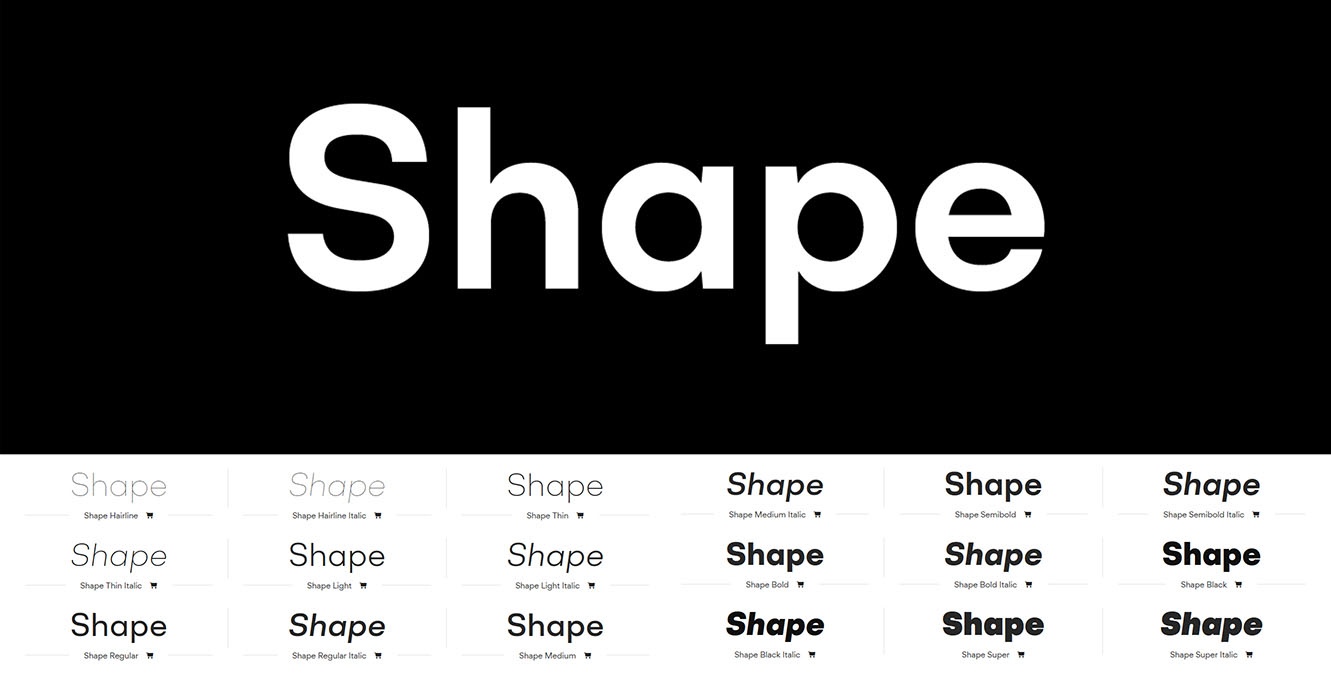
Shape Font
Shape Font is perfect for geometric design studios, minimalist architecture firms, modern art galleries, contemporary furniture brands, clean tech startups, and sophisticated corporate identity systems. Its structural character makes it ideal for engineering companies, graphic design agencies, industrial product packaging, mathematical publications, construction firms, and any project requiring precise geometry with mathematical elegance and systematic visual harmony.
This font is exciting because it celebrates the fundamental power of pure geometric forms while delivering exceptional functionality across all design applications. The precisely engineered letterforms demonstrate mathematical beauty and structural integrity, creating typography that appeals to audiences who appreciate clean lines, logical systems, and the timeless appeal of geometric perfection in contemporary design solutions.
The Shape Font family typically includes Light, Regular, Medium, and Bold weights with geometric alternates, mathematical symbols, and systematic ligatures that enhance its structural personality. This comprehensive collection provides designers with precise tools for creating cohesive brand systems that maintain geometric authenticity while offering creative flexibility for various technical applications and modern architectural presentations.
Whether you're developing identity systems for design consultancies, creating technical documentation for engineering projects, or designing materials for contemporary art exhibitions, Shape Font Free Download delivers the geometric precision and systematic elegance that resonates with design-conscious audiences. Its clean presence ensures professional impact across digital platforms and print materials, making it perfect for websites, mobile applications, and corporate communications that celebrate mathematical beauty, structural integrity, and the powerful simplicity of geometric design with contemporary sophistication and timeless appeal.